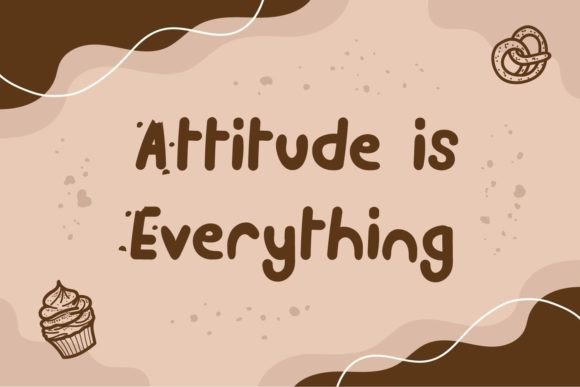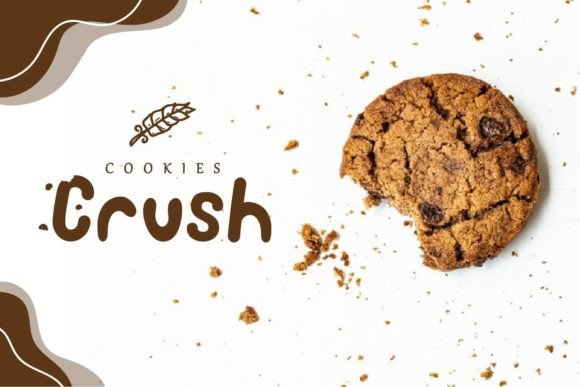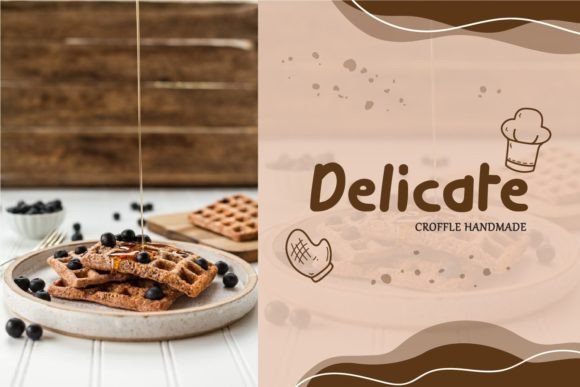
Introduction to Kricers Font
Kricers is an incredibly quirky and sweet display font.
Whether you use it for cartoon-related designs, children’s games, or just any creation that requires a lovely touch, this font will be an amazing choice This font is PUA encoded which means you can access all of the amazing glyphs and ligatures with ease.
Key Features of Kricers Font